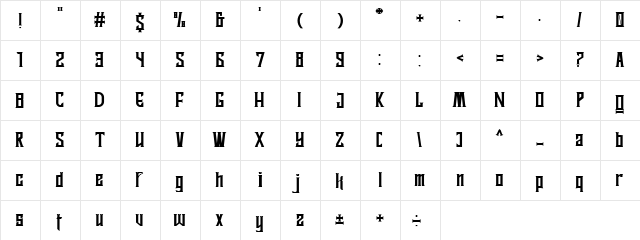
KAYAMBANG Regular
| Designer | Randi Ilhamsyah // Vasgaz Creative |
Design Context for KAYAMBANG Typeface
KAYAMBANG is a composed and adaptable typeface that performs quietly and consistently across a wide range of design contexts.